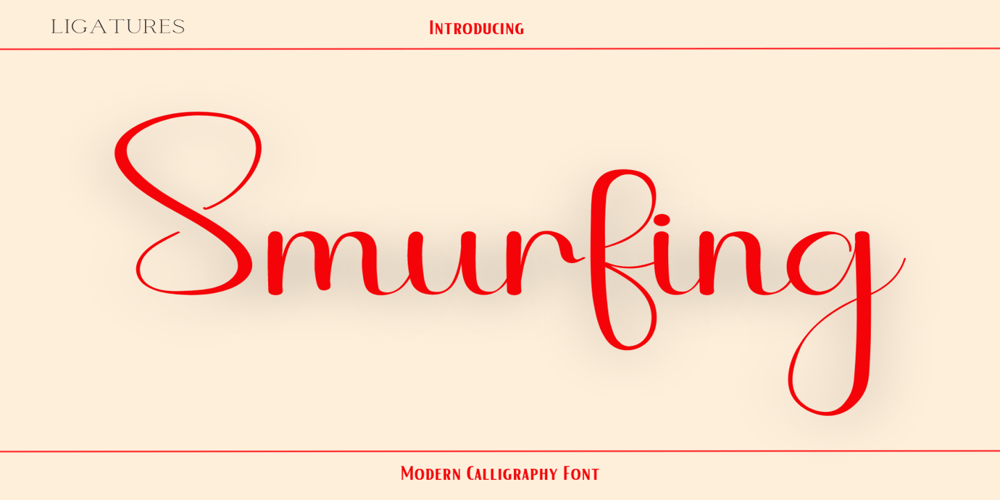
Smurfing
Smurfing font
Smurfing Font Family was designed by Bram de Does and published by Adita Fonts. Smurfing contains 1 styles and family package options. Smurfing is a graceful handwritten font characterized by fluid strokes and elegant curves. With its flowing rhythm and natural feel, Smurfing exudes charm and sophistication. Ideal for wedding invitations, greeting cards, and branding, this font adds a touch of warmth and personality to any project with its stylish appeal.